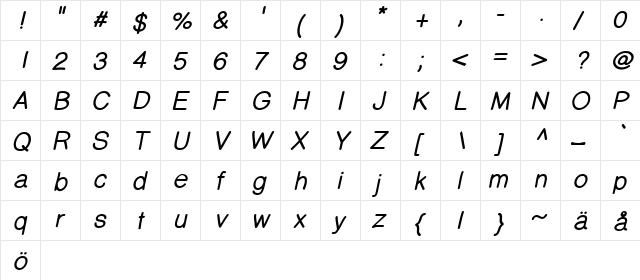
PrinsesstartaDEMO BoldItalic Font Preview
| Foundry | Shara Weber |
| Designer | Shara Weber |
Design Context for PrinsesstartaDEMO Typeface
PrinsesstartaDEMO takes a measured approach to typography — its balanced proportions and neutral character make it a reliable workhorse for both digital and print work. The slanted form adds forward momentum and visual energy. The heavy weight commands attention and anchors typographic hierarchies.
Pro Tip: Try PrinsesstartaDEMO for annotation and caption copy alongside an upright companion — the contrast in angle creates a dynamic but ordered typographic system.